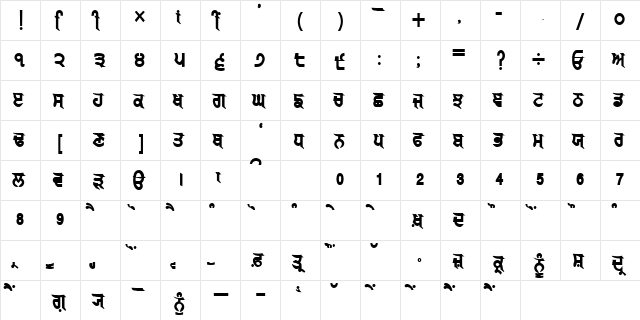
AkrutiPnjRomi Bold
Design Context for AkrutiPnjRomi Typeface
AkrutiPnjRomi is a composed and adaptable typeface that performs quietly and consistently across a wide range of design contexts. Its bold stroke weight gives it real presence on the page.